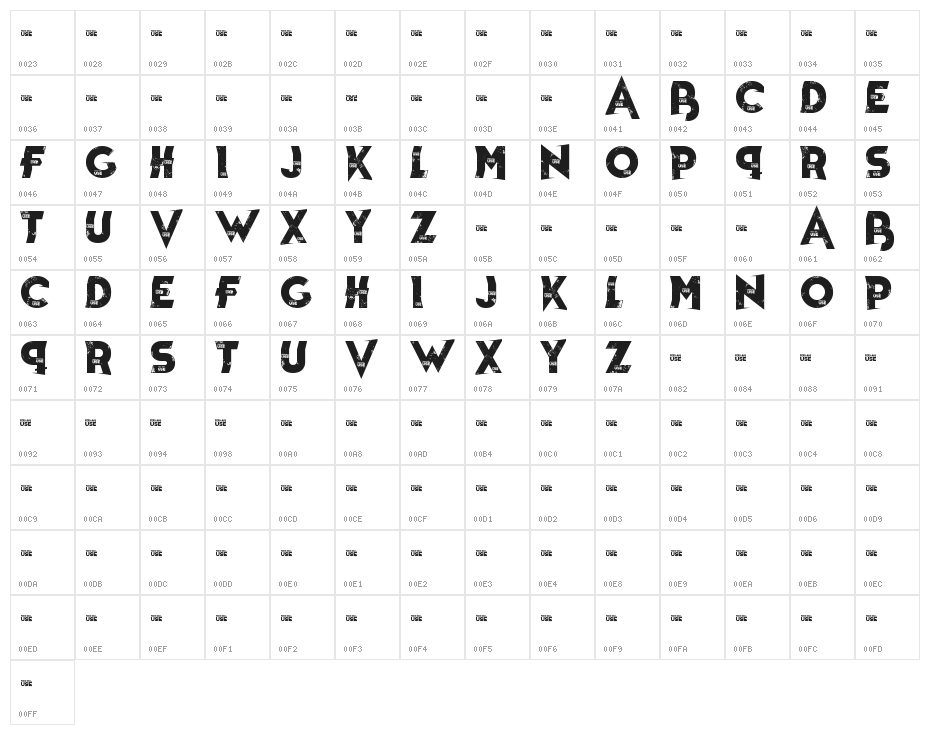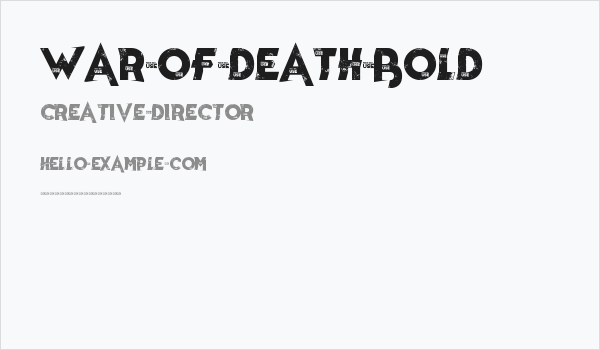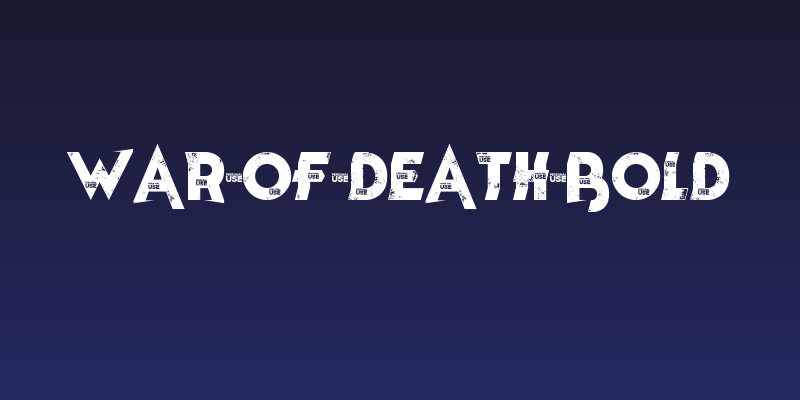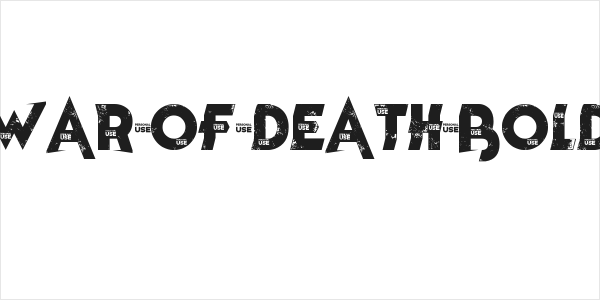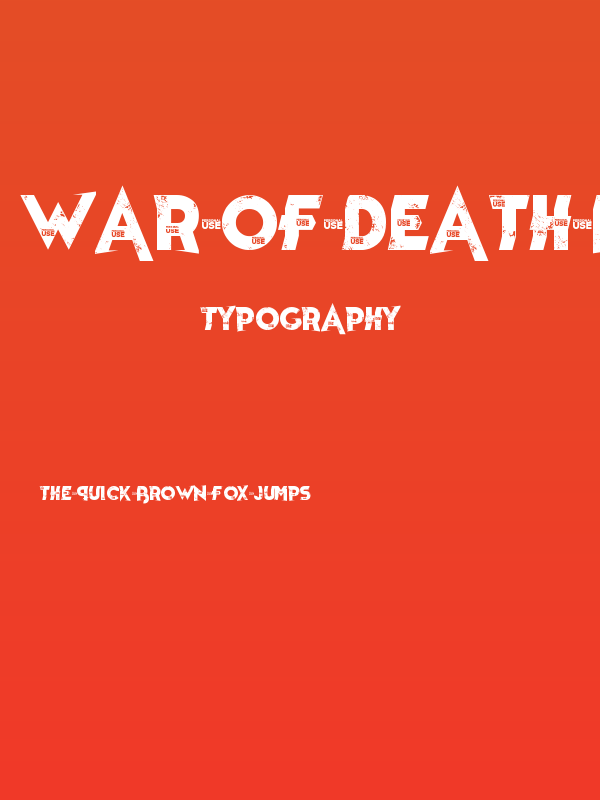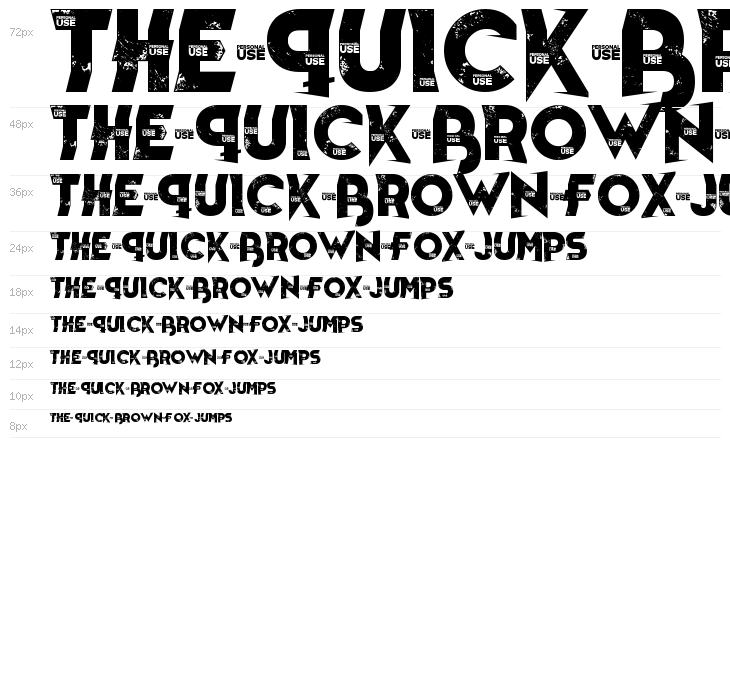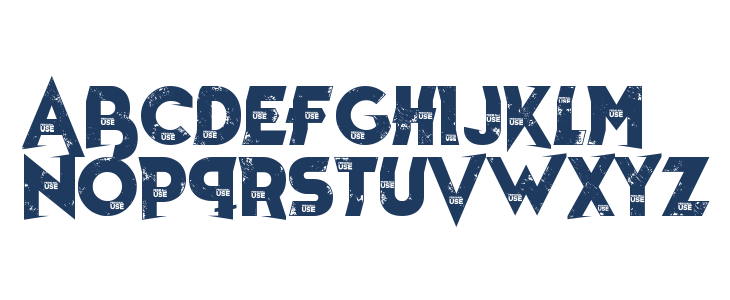
War of Death Bold Font
War of Death Bold Description
This font features a bold and distressed style, characterized by its rough, textured appearance that gives it a gritty and edgy look. The uppercase letters are prominently designed with sharp angles and a slightly condensed form, making them stand out with a strong presence. The distressed texture adds a layer of depth and character, suggesting a sense of wear and history. This font is ideal for projects that require a bold statement or a vintage, rugged aesthetic. The unique texture within each letter creates a dynamic visual interest, making it suitable for attention-grabbing headlines or thematic designs.
| Overall Style | Vintage, Edgy |
| Proposed Projects | Ideal for posters, album covers, video game titles, and branding that requires a bold, edgy look. |